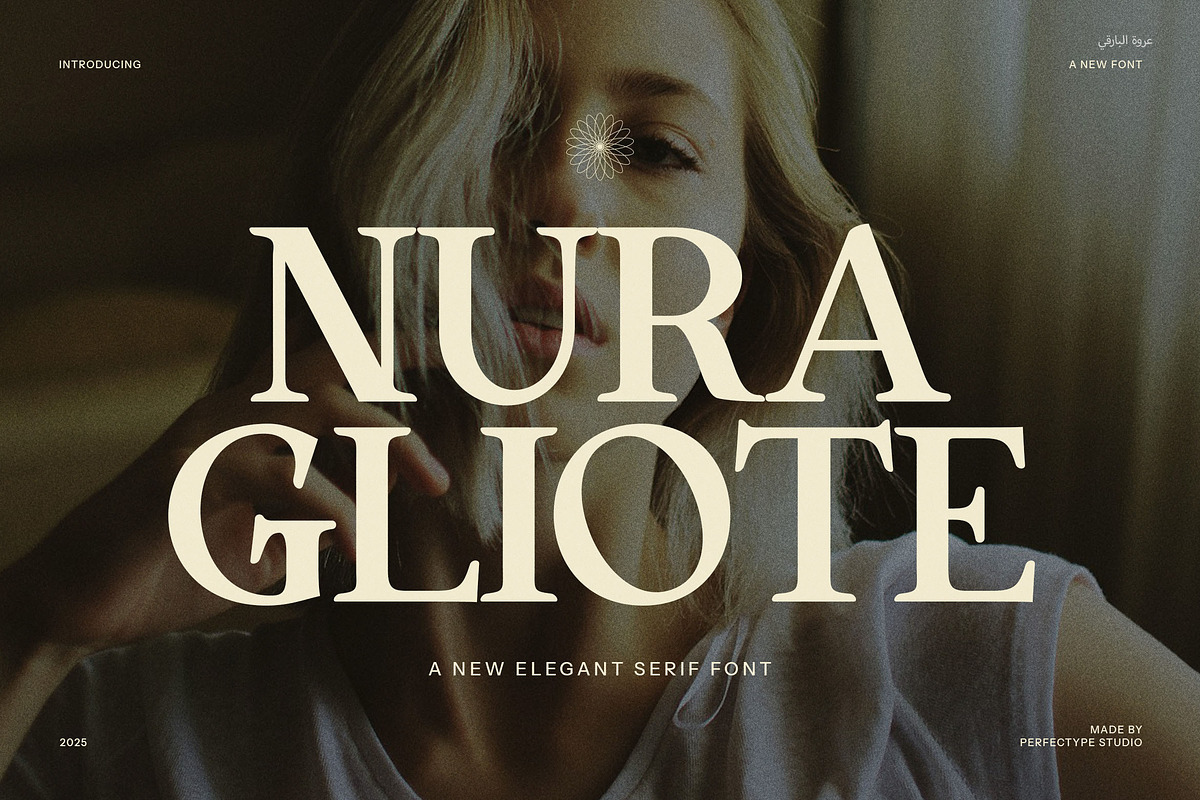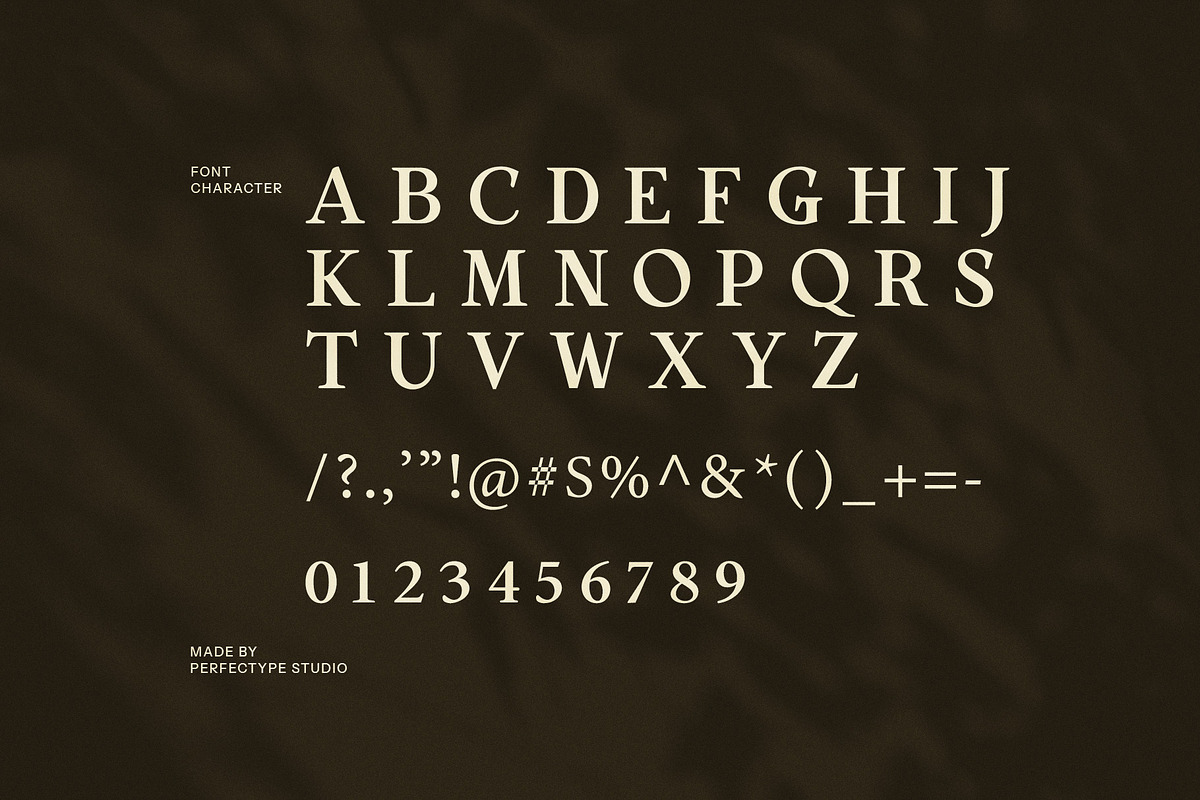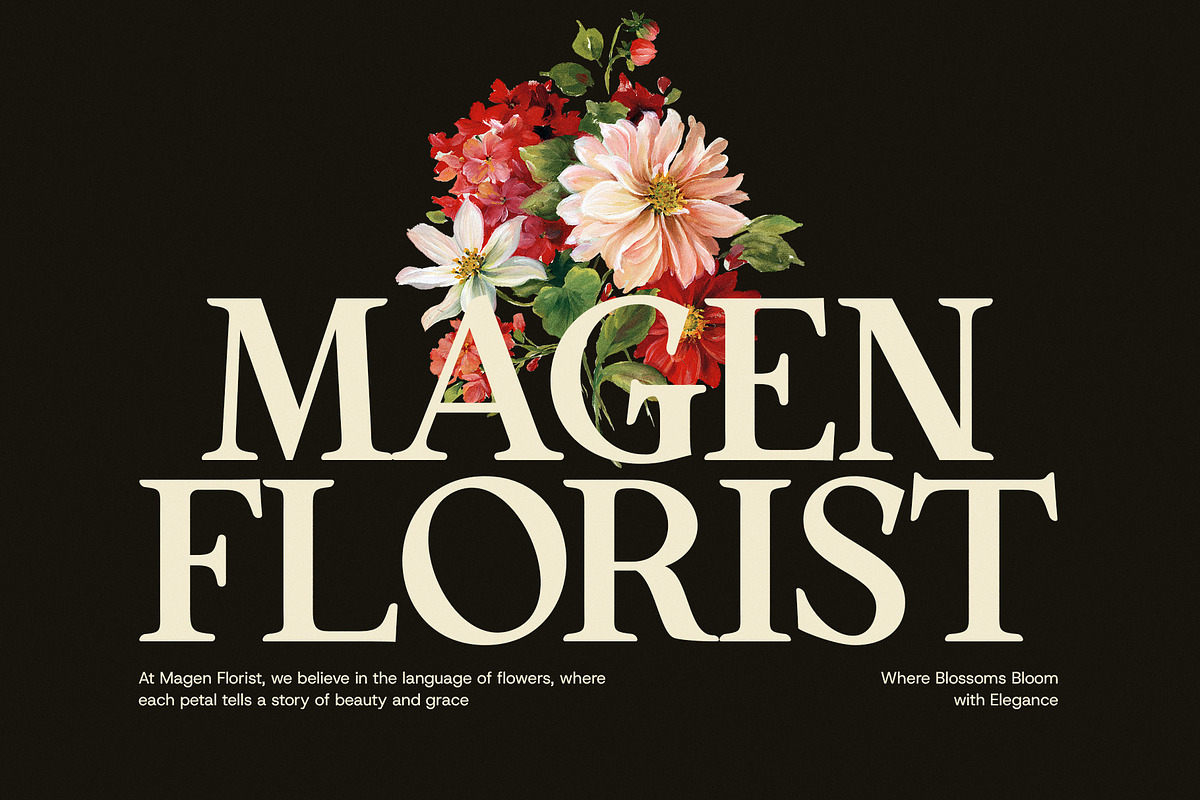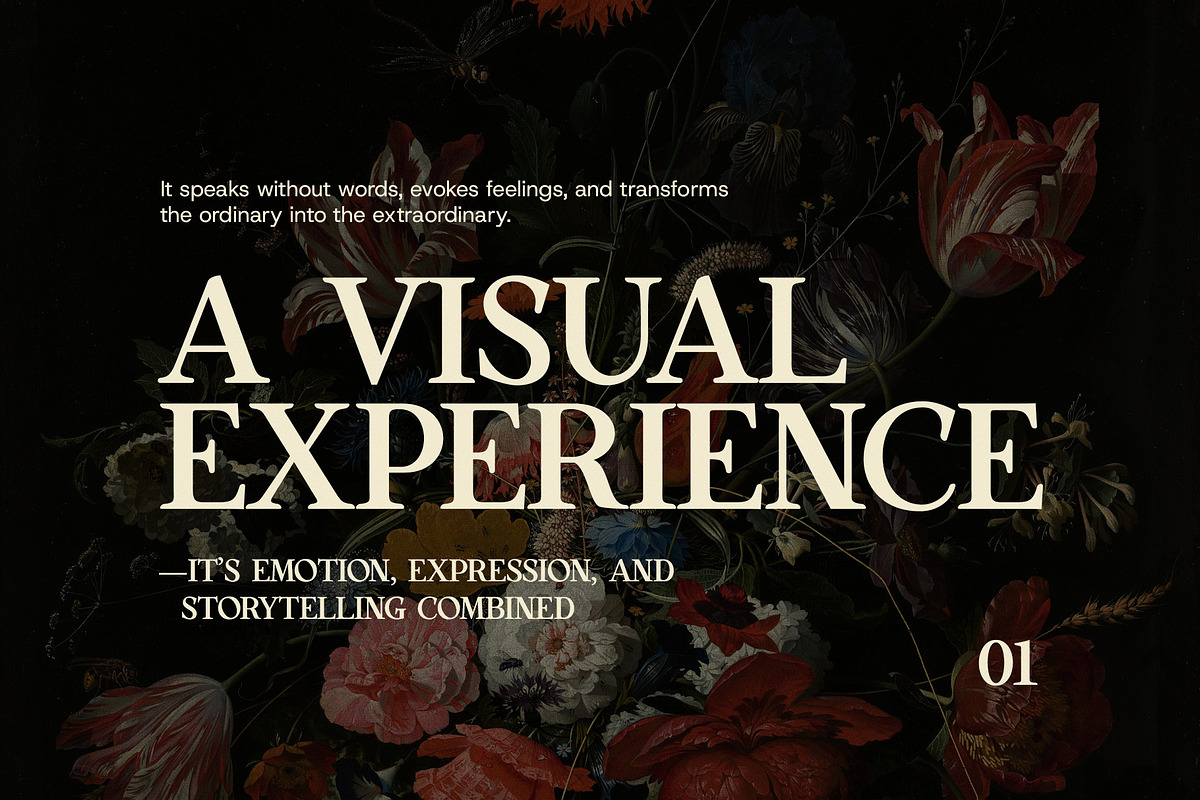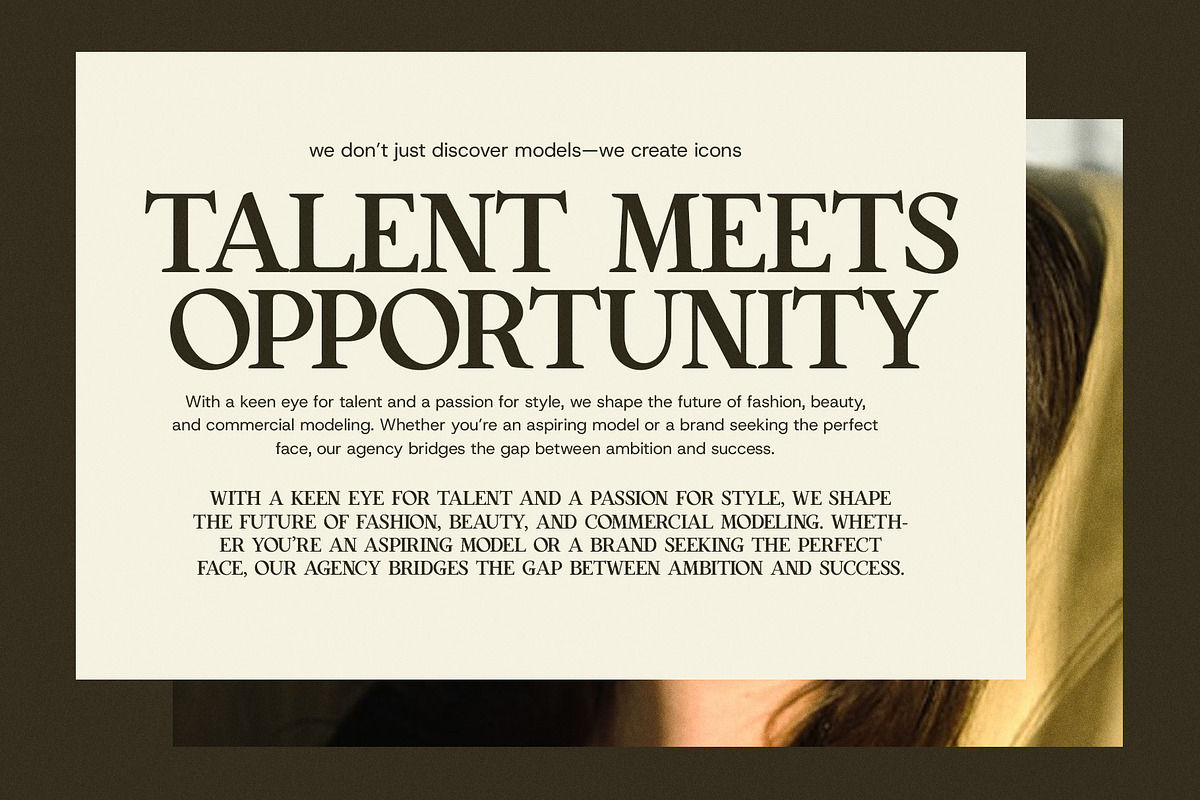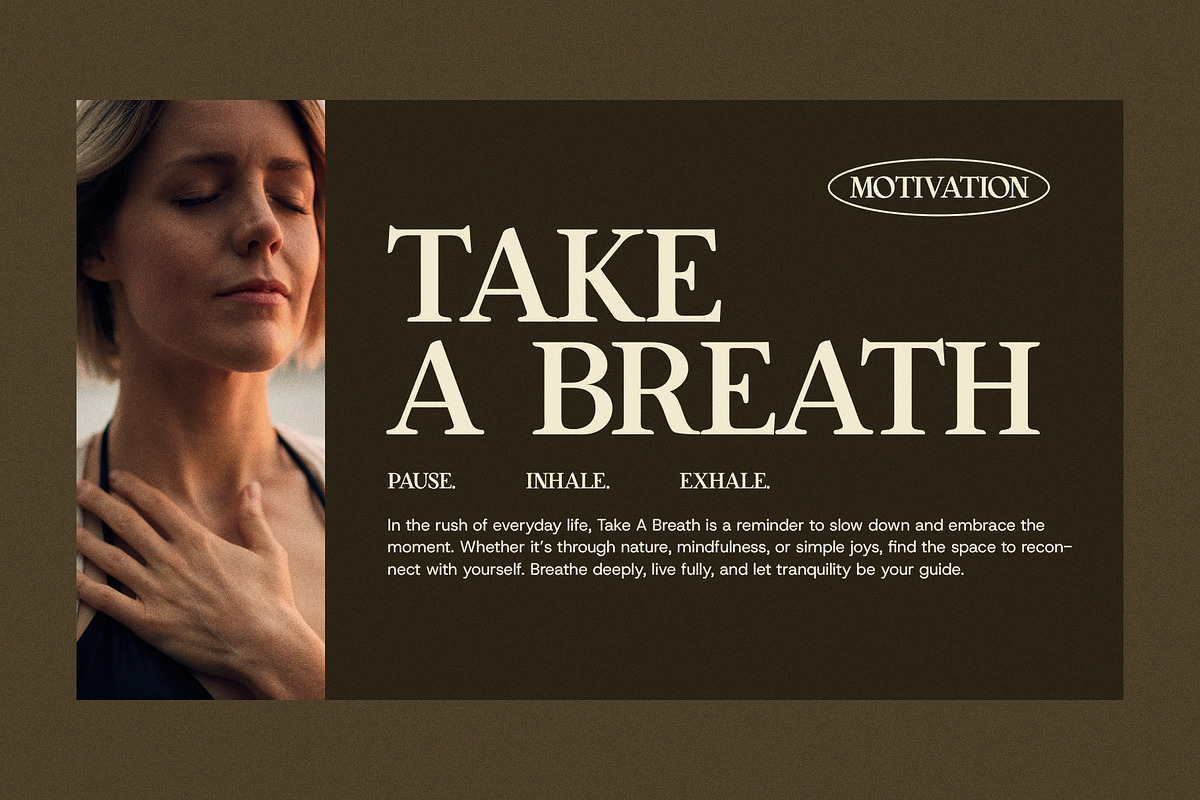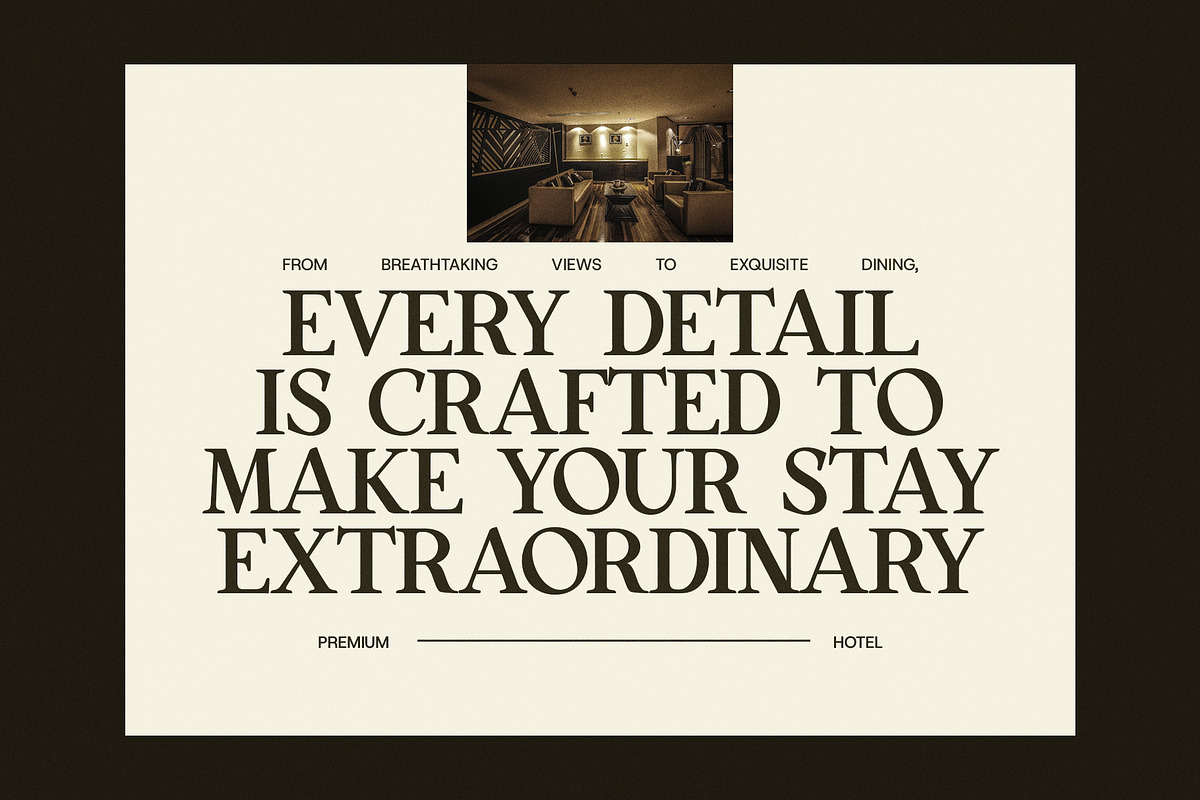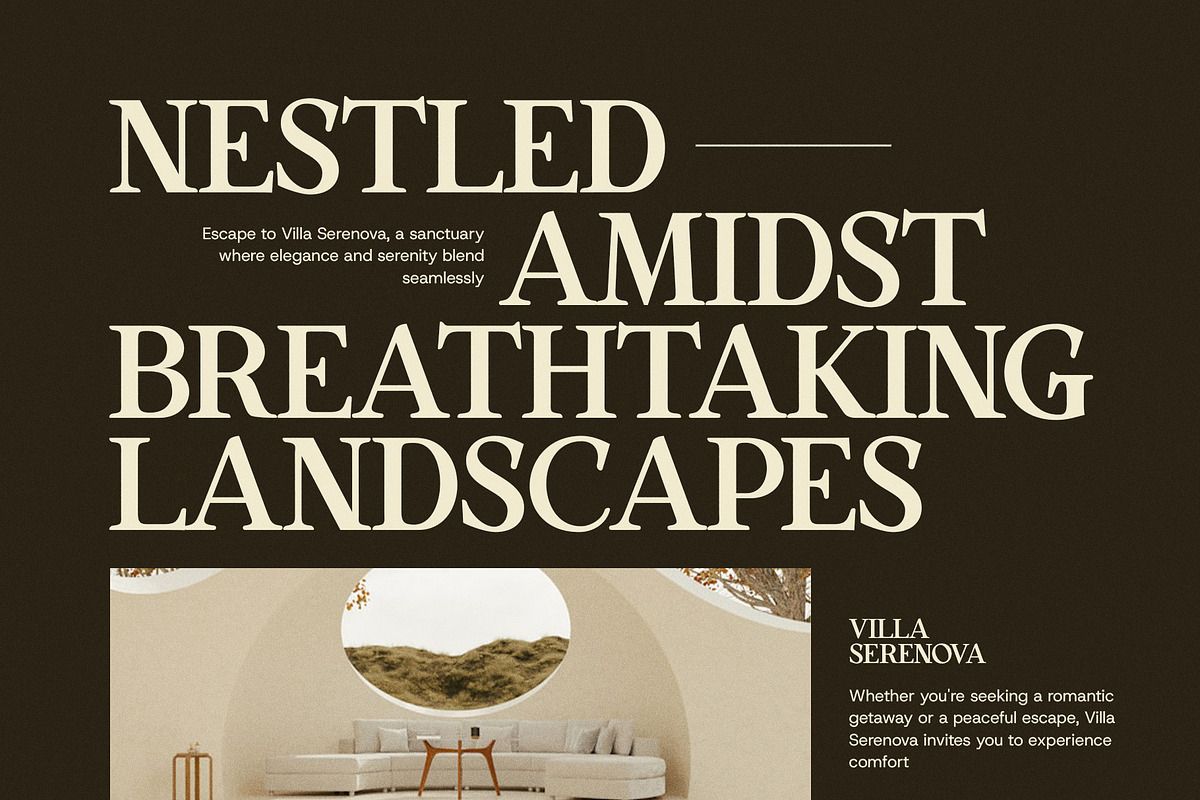
Nura Gliote Elegant Serif Font
Nura Gliote Elegant Serif Font is a modern, refined serif typeface that combines timeless elegance with contemporary design sensibilities. Its sophisticated structure, featuring sleek serifs and graceful curves, makes it the perfect choice for high-end projects that require a touch of luxury and class. The unique ligatures and carefully crafted alternate letterforms elevate this font beyond the ordinary, providing designers with the ability to create distinctive, memorable typography.
Whether you are designing a premium logo, crafting a stylish website, or curating an elegant magazine layout, Nura Gliote offers the versatility and elegance you need. The font’s versatility makes it suitable for a wide range of industries, including fashion, food, real estate, and boutique branding. It effortlessly enhances the visual identity of any brand, adding a level of sophistication that will captivate your audience.
With its clean, modern aesthetic, Nura Gliote works beautifully across both digital and print platforms. From product packaging to advertising campaigns, this typeface is built to create an impact. The ligatures and alternates give you flexibility, allowing you to fine-tune your designs for a personalized touch.
Nura Gliote Elegant Serif Font strikes the perfect balance between style and functionality. Its elegance, combined with its modern features, makes it the ideal choice for anyone looking to elevate their designs with a font that speaks sophistication, creativity, and timeless appeal. Perfect for branding, logos, websites, and more, this font will bring your projects to life with a unique, refined flair.